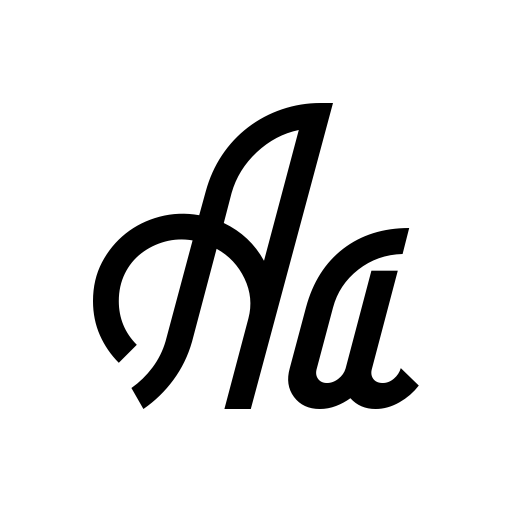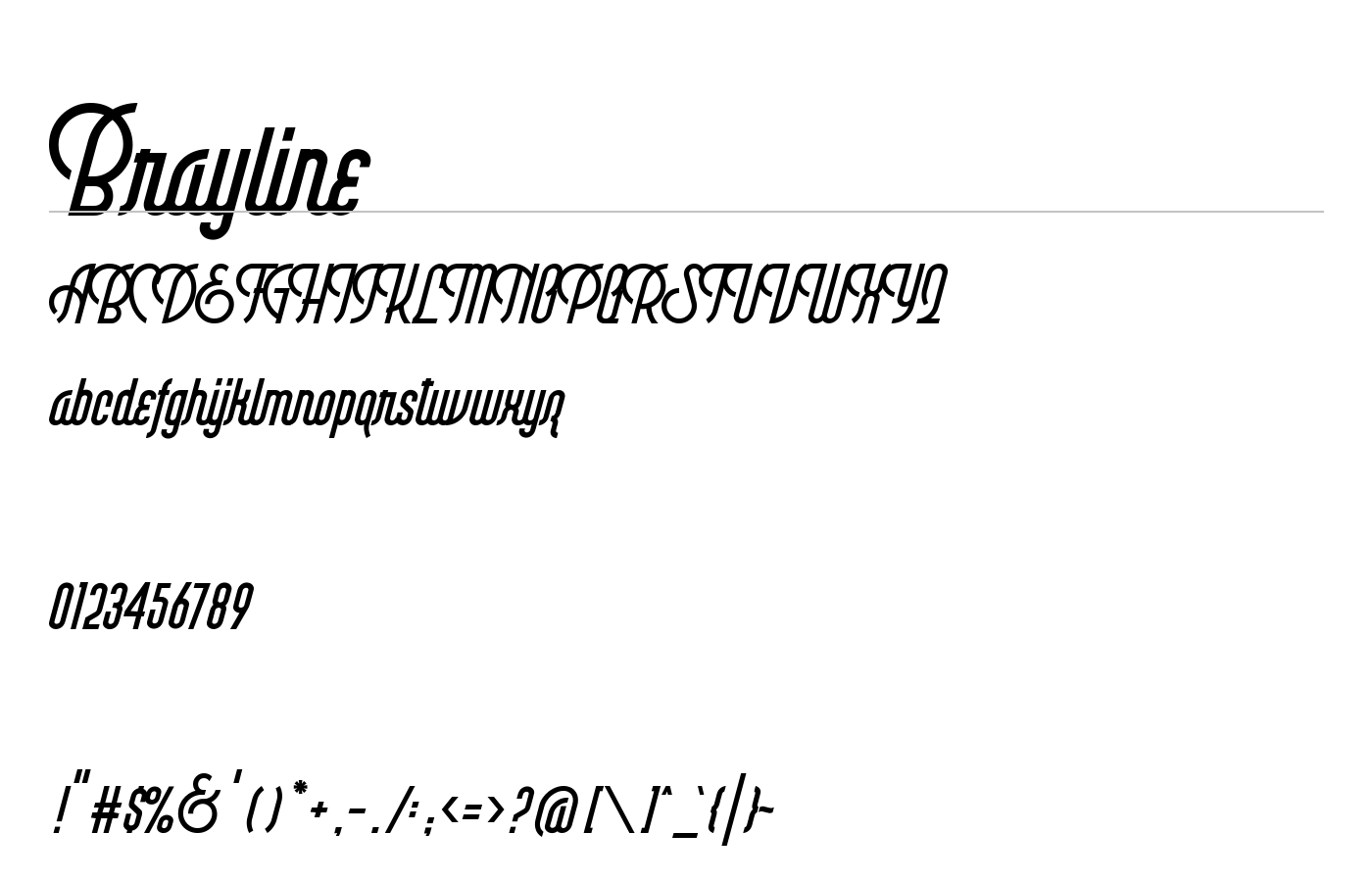
Brayline is a sleek, condensed script font with a stylish, italicized flow that combines vintage charm with modern sharpness. Its elegant yet dynamic letterforms, featuring unique loops and angled strokes, make it perfect for fashion branding, logos, and eye-catching headlines seeking a sophisticated yet energetic feel. This font works best in display uses where its distinct personality can truly stand out.
Brayline Font
About Brayline Font
| Font family | Brayline Font |
| Designer | Adil Budianto |